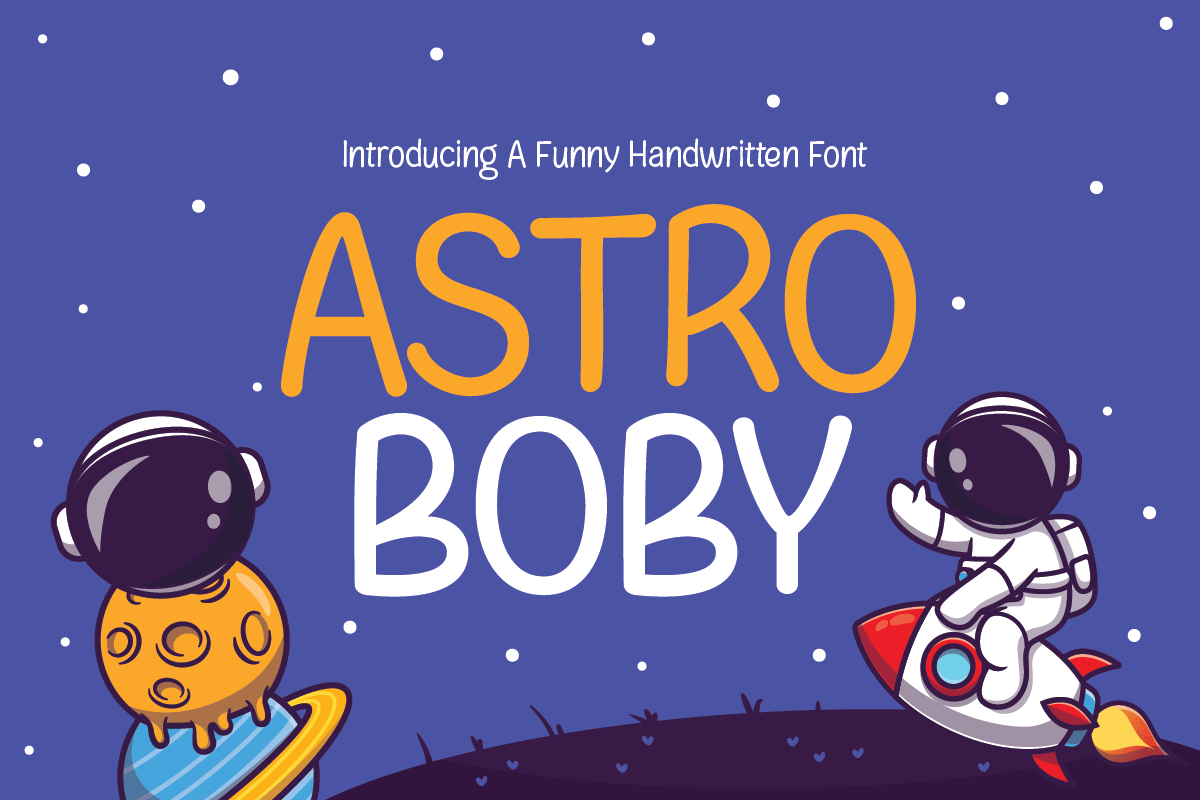
Astro Boby
-Kids Aero Space Quirkiy Unique font
Astro Boby
Astro Boby is a Kids Aero Space Quirkiy Unique font This font specially crafted for your design projects such as cute logo, unique, modern for t-shirt designs, product packaging, merchandise, and so many more with easy to use but unique results are so kids feel.
Enjoy to Design any your needs with cute, lovely, and charming feel.